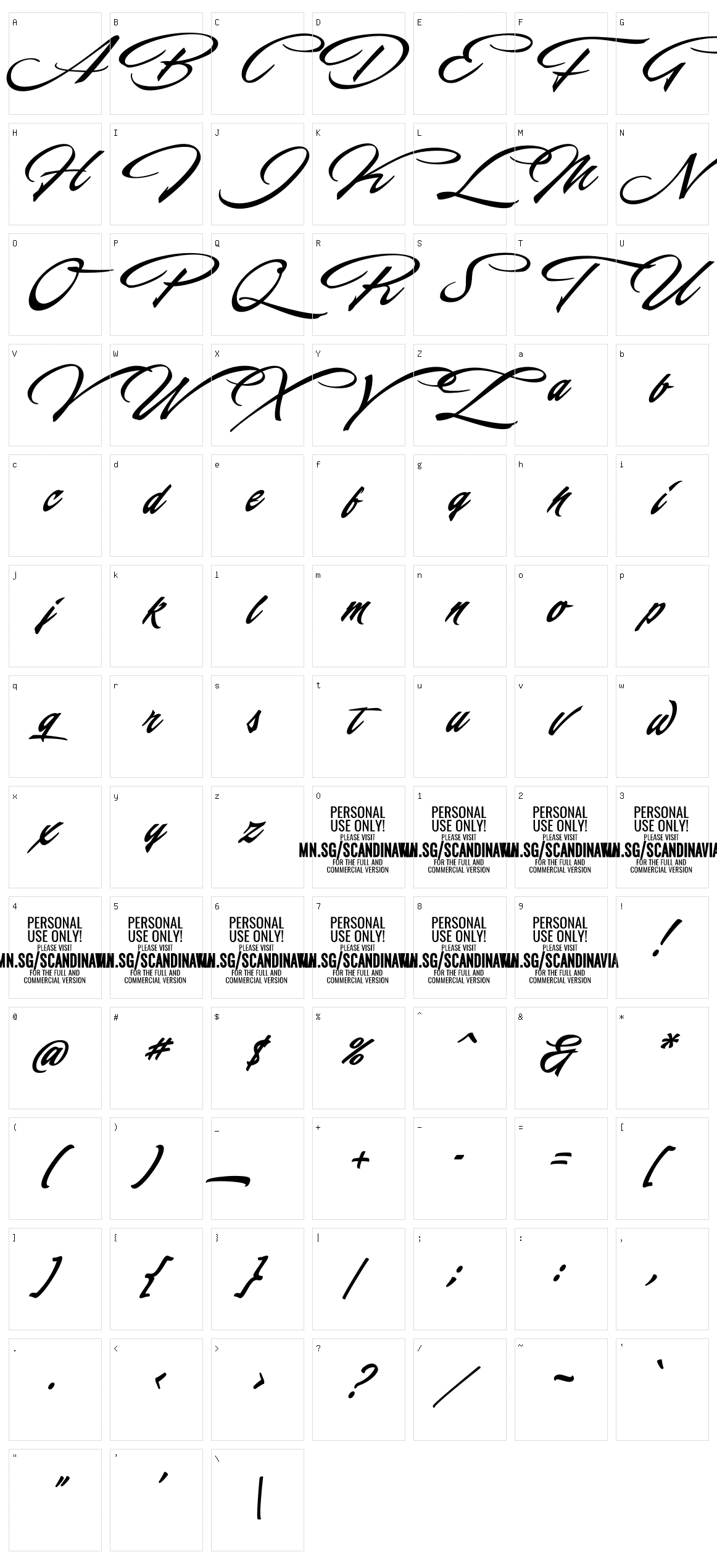
Scandinavia Brush is a wild calligraphy font by Mans Greback, inspired by the untamed beauty of Nordic nature. It captures a rugged essence, with each stroke reflecting the raw energy and grace of natural environments. This brush-painted typeface is perfect for logos, handwritten designs, and tattoo art with its active and streetwise feel.
Designed with a professional touch and high-quality craftsmanship, Scandinavia Brush comes in six versatile styles: Regular, Upright, Bold, Italic, and the combinations Bold Italic and Bold Upright. The range of styles allows you to create unique, expressive designs that capture the spirit of adventure, speed, and beauty.
Use underscores _ anywhere in a word to make an underline swash.
Example: Nord___ic Bru_sh
Ideal for designer and art projects, or high-end handcrafted products, Scandinavia Brush brings a bold, authentic, and captivating touch to your creative endeavors.
The font is built with advanced OpenType functionality and has a guaranteed top-notch quality, containing stylistic and contextual alternates, ligatures, and more features; all to give you full control and customizability. It has extensive lingual support, covering all Latin-based languages, from Northern Europe to South Africa, from America to South-East Asia. It contains all characters and symbols you'll ever need, including all punctuation and numbers.